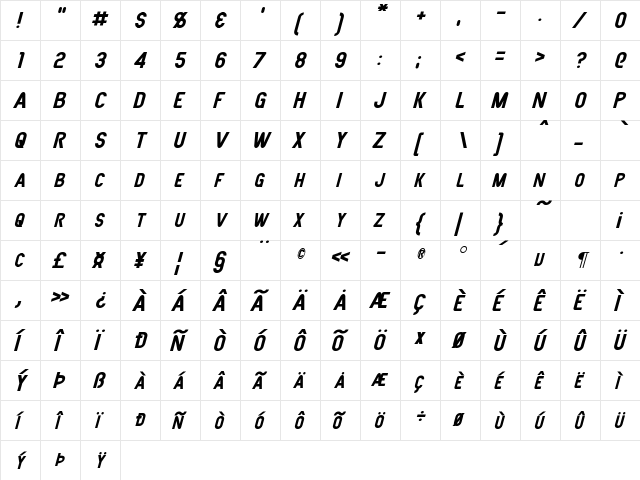
Joystick Italic
Design Context for Joystick Typeface
Joystick offers clean, dependable letterforms without strong stylistic allegiance, making it a practical choice for designers who need flexibility. The slanted form adds forward momentum and visual energy.
Pro Tip: Use Joystick for emphasis, pull quotes, and subheadings where its slanted energy can add rhythm to the layout.